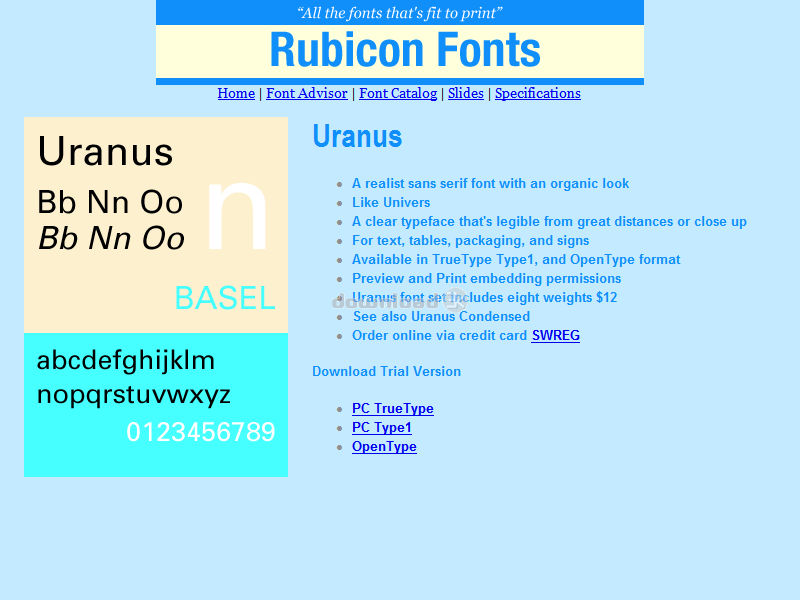
"Realist sans serif font, organic look"
Realist sans serif font with an organic feel. Like Univers. A clear typeface that's legible from great distances or close up. An all purpose design, great for text, headlines, packaging, and signs. Use in any size. Accurate and hinted, matching font metrics, standard character set, kerning pairs. Professional print quality for inkjet, laser, typesetter to 3500 dpi. Purchasers receive 8 font variants as follows: Light, Light Oblique, Normal, Oblique, Bold, Bold Oblique, Extrabold, Extrabold Oblique.Requirements: Older versions of Windows require Adobe Type Manager.